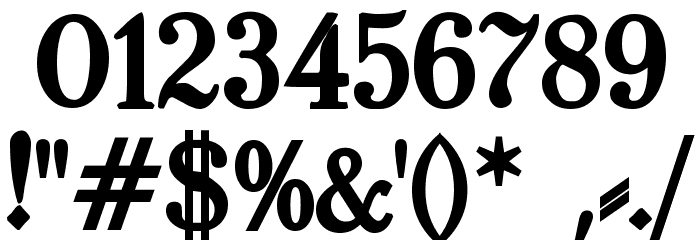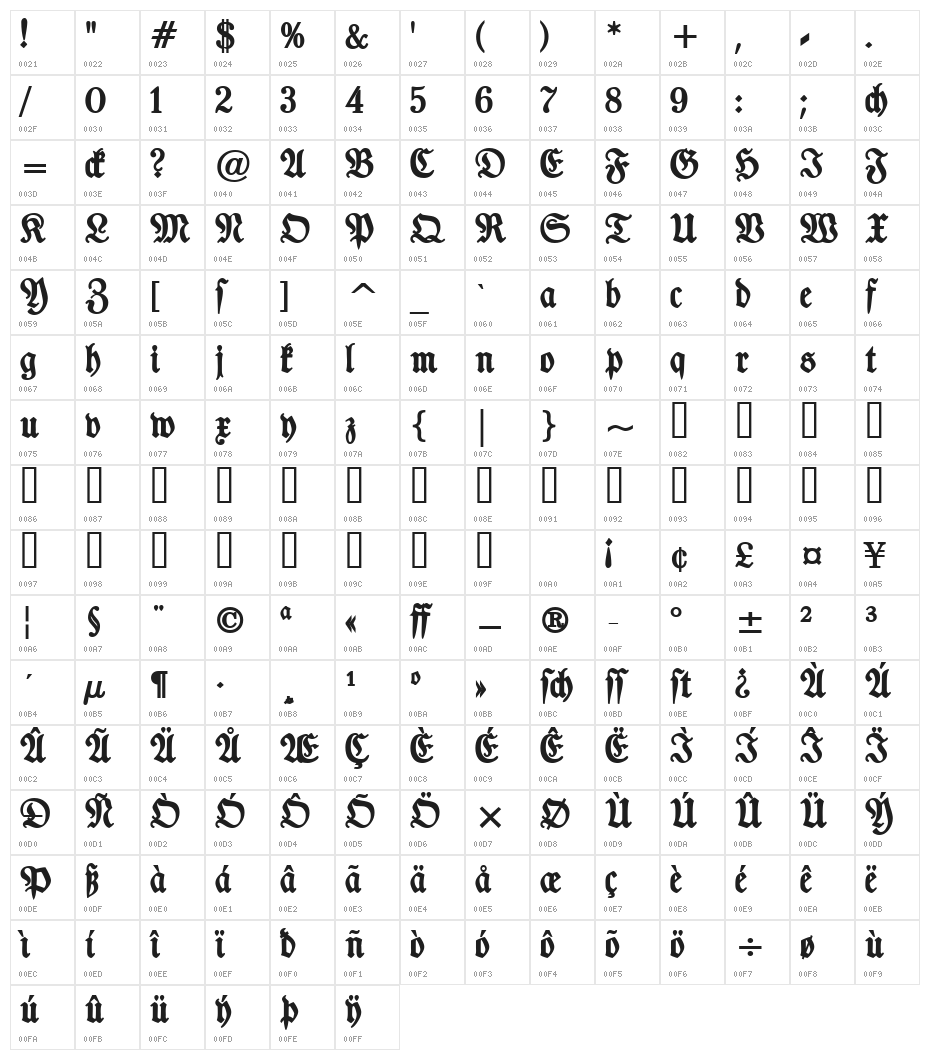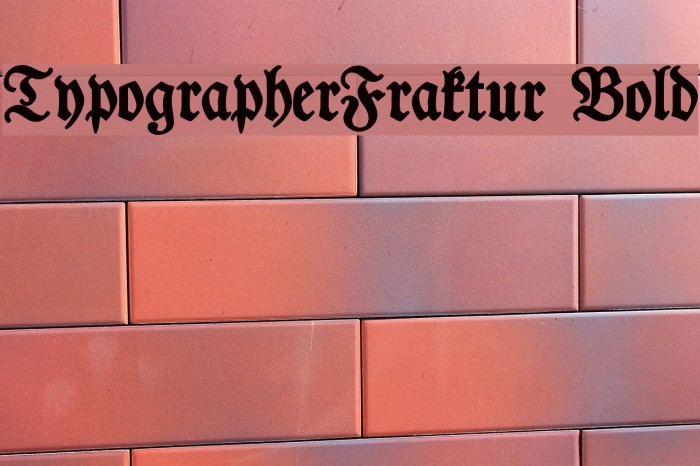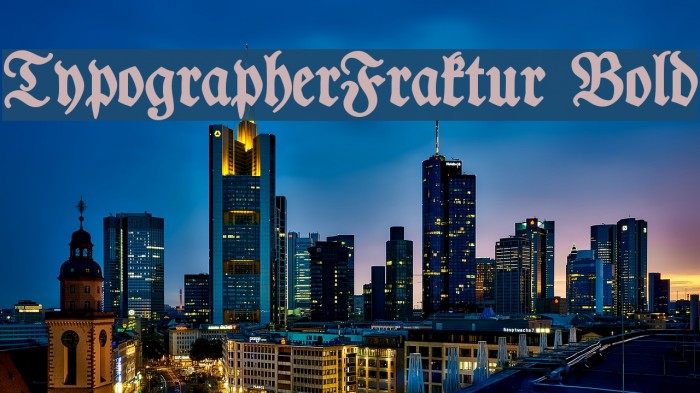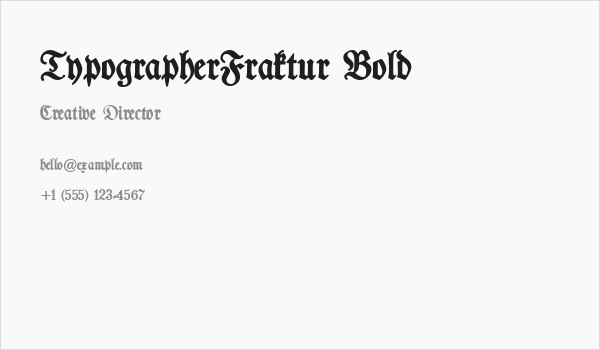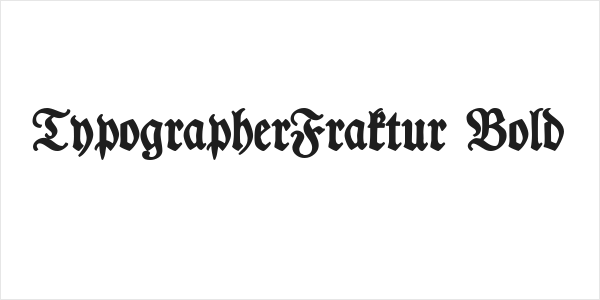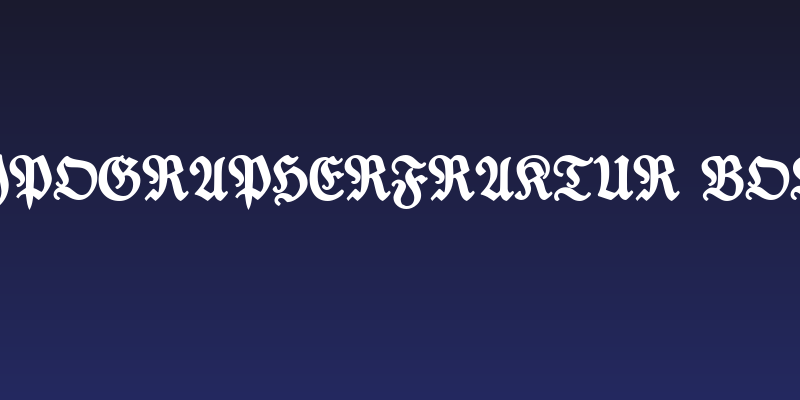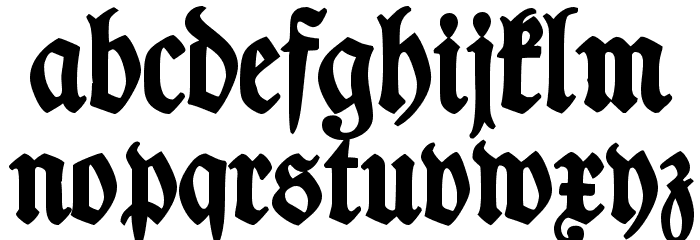
TypographerFraktur Bold Font
TypographerFraktur Bold Description
This font embodies the traditional elegance of blackletter typography, characterized by its intricate and ornate design. The letters are bold and striking, with sharp angles and elaborate curves that give it a distinct medieval appearance. The uppercase and lowercase letters maintain a consistent style, with a strong emphasis on vertical strokes and decorative serifs. The numerals and special characters are equally elaborate, ensuring a cohesive look across all elements. This font's boldness and historical aesthetic make it ideal for projects that require a touch of classic sophistication.
| Proposed Projects | Ideal for historical documents, certificates, book covers, and branding that requires a classic or gothic touch. |